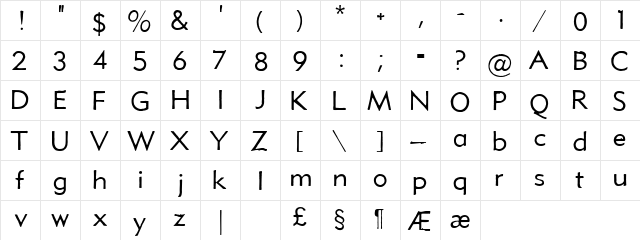
Metro Lite HPLHS
Design Context for Metro Lite Typeface
Metro Lite is a composed and adaptable typeface that performs quietly and consistently across a wide range of design contexts.